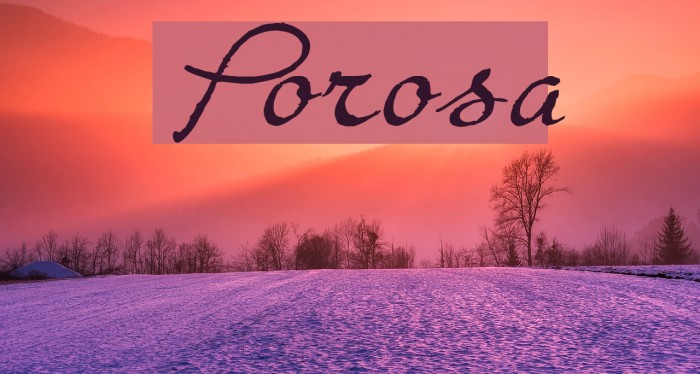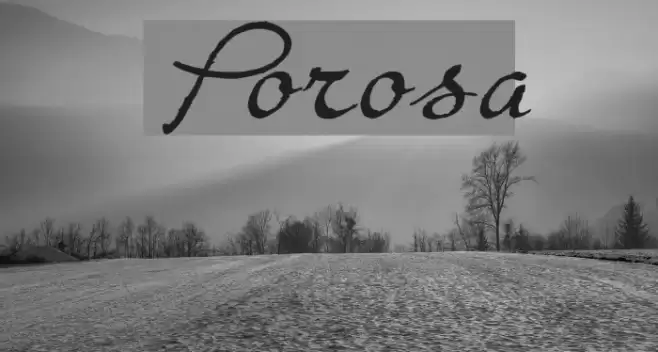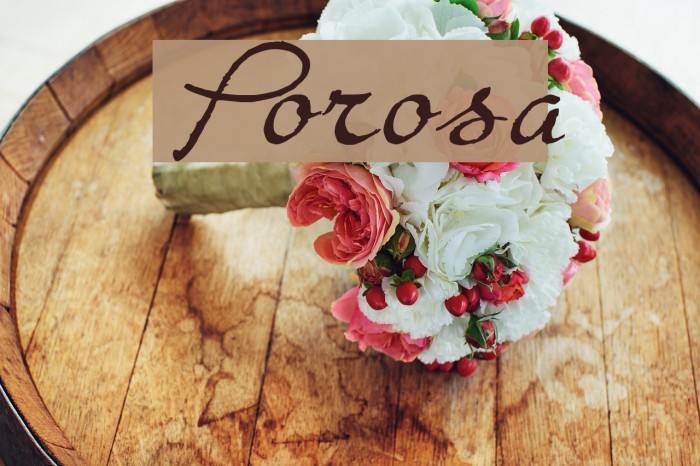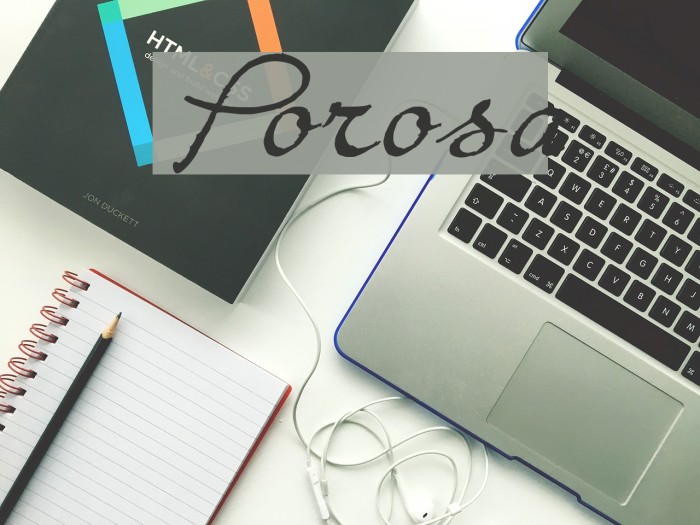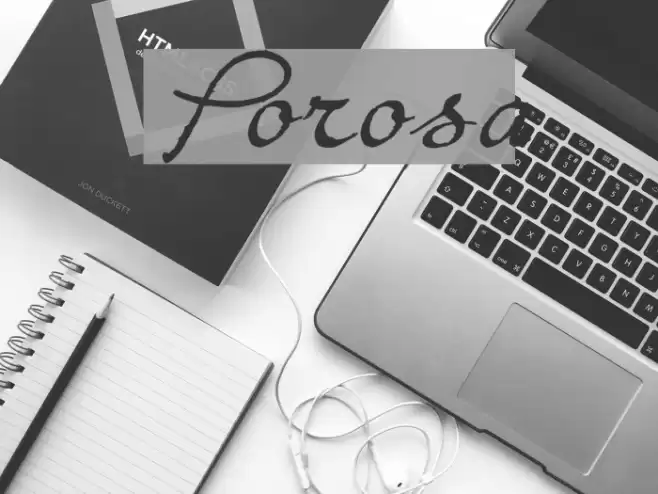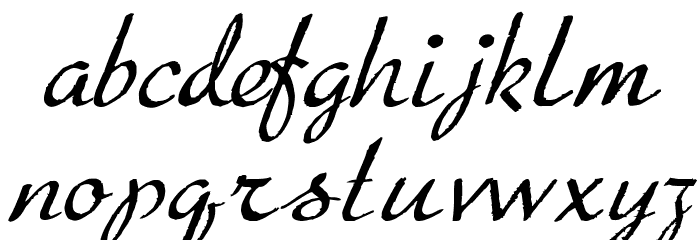
Porosa Font
This font exhibits a flowing, cursive style with elegant, sweeping curves and a handwritten appearance. The uppercase letters are characterized by their intricate loops and flourishes, giving them a sophisticated and artistic flair. The lowercase letters maintain a consistent slant, enhancing the script-like quality of the font. The strokes vary in thickness, providing a dynamic contrast that adds to the visual interest. The overall design is reminiscent of traditional calligraphy, yet it retains a modern touch that makes it versatile for various applications. The numerals and special characters are designed to complement the alphabet, maintaining the same stylistic elements throughout.
A cursive, handwritten font with elegant loops and dynamic contrast.
• Proposed Projects: Ideal for wedding invitations, greeting cards, branding, and elegant packaging designs.
• Category: Script
• Contrast: Medium
• Overall Style: Classic
• Use Case: Logos, Invitations, Decorative text